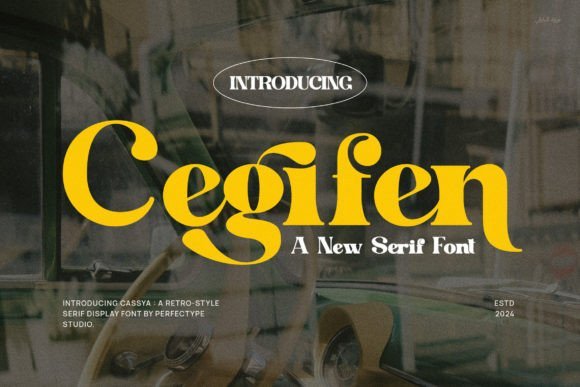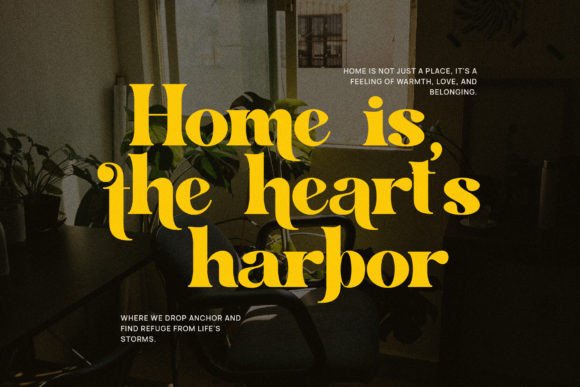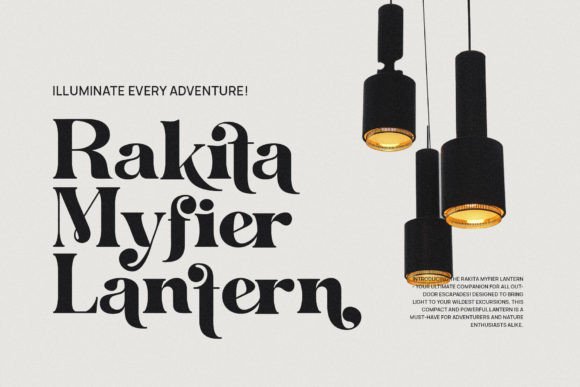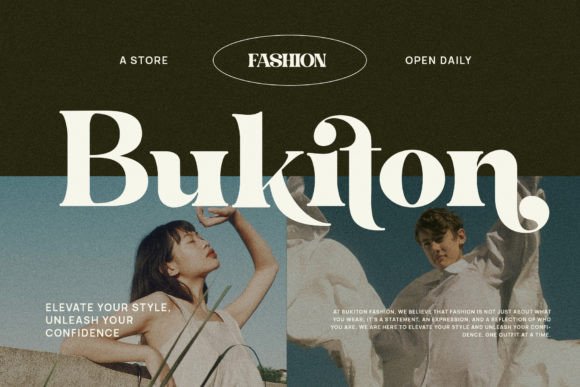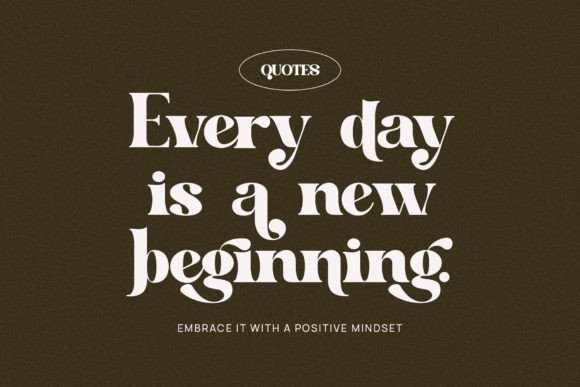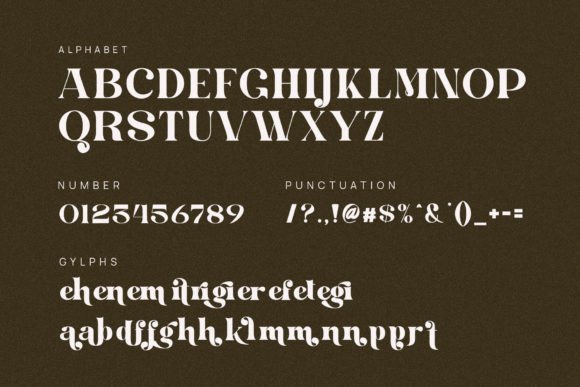
The Perfect Font for Creative Visionaries
Have you ever stared at a blank canvas, trying to bring your creative vision to life, only to be held back by the perfect font to match your style? We’ve all been there. The search for the ideal typography can be a daunting task, but what if I told you that your search is over? Introducing the Cegifen Font, a stunning serif typeface that combines elegance with a modern twist.
Whether you’re working on a branding project, designing a logo, or creating social media posts, the Cegifen Font is the perfect companion for your creative endeavors. Its classy style and high level of readability make it an invaluable asset for designers, allowing you to express your artistic vision with precision and flair.
Cegifen Font Key Features
- Unique Characteristics: Cegifen Font features a distinctive, modern design with clean lines and geometric shapes, making it ideal for use in corporate branding, advertising, and digital media.
- Font Style: Cegifen Font is available in Regular, Italic, Bold, and Bold Italic styles, providing designers with a range of options to suit different design requirements.
Cegifen Font Review
Cegifen Font is a unique and eye-catching typeface that can add a touch of elegance to any design project. ✨ One of the standout features of this font is its versatility – it works well in both print and digital applications, and can be used in a variety of contexts, from logos and branding to body text and display headings.
Here are some of the things that work well in Cegifen Font: ✨
- Unique and elegant aesthetic
- Highly versatile and adaptable
- Works well in a variety of contexts and applications
- May not be suitable for body text in very small sizes, as it can be difficult to read
- May not be the best choice for projects that require a more modern or minimalist aesthetic
Overall, I would say that Cegifen Font is a great choice for designers who are looking to add a touch of sophistication and elegance to their projects. While it may not be the best choice for every project, it is certainly a unique and eye-catching option that is worth considering.
Tips for Getting the Most Out of Cegifen Font
For optimal results, use Cegifen Font in bold or italic styles to add emphasis and visual interest.
Experiment with different font sizes to create a balanced and harmonious design.
Cegifen Font is ideal for:
Headings and titles in branding and marketing materials.
Body text in publications and editorials.
Quote overlays and captions in social media graphics.
Alternatives to Cegifen Font for Designers
Open Sans is a popular sans-serif font that is highly legible and versatile. It’s suitable for a wide range of applications, from body text to headings. Open Sans is more modern and clean compared to Cegifen Font, which makes it a great choice for digital products and websites.
Comparison: While both fonts are sans-serif, Open Sans is more modern and has a more open feel, whereas Cegifen Font has a more traditional and elegant look.
Montserrat is a sans-serif font that originated in Buenos Aires, Argentina. It’s designed to work well in small sizes and is ideal for body text and captions. Montserrat is more geometric and modern compared to Cegifen Font, which makes it a great choice for urban and industrial-themed designs.